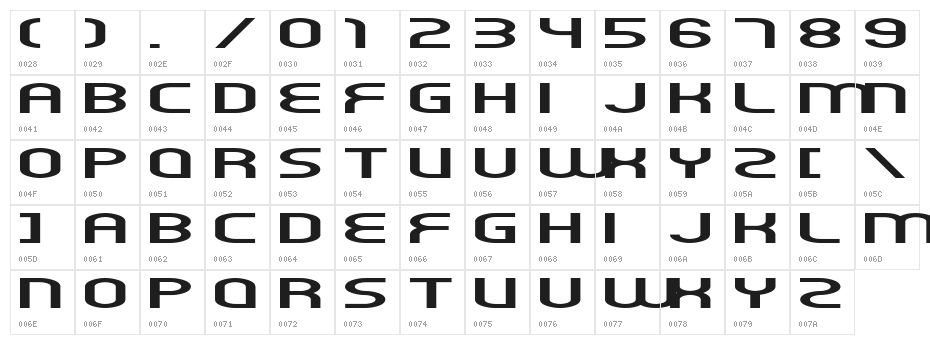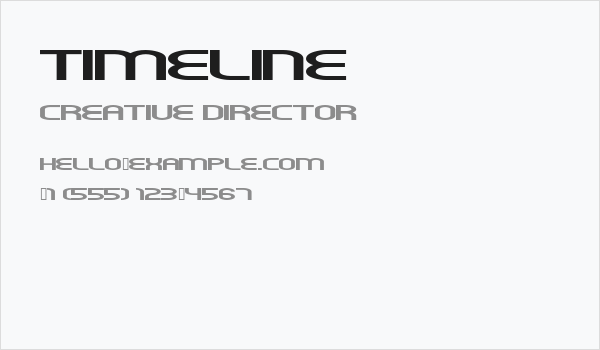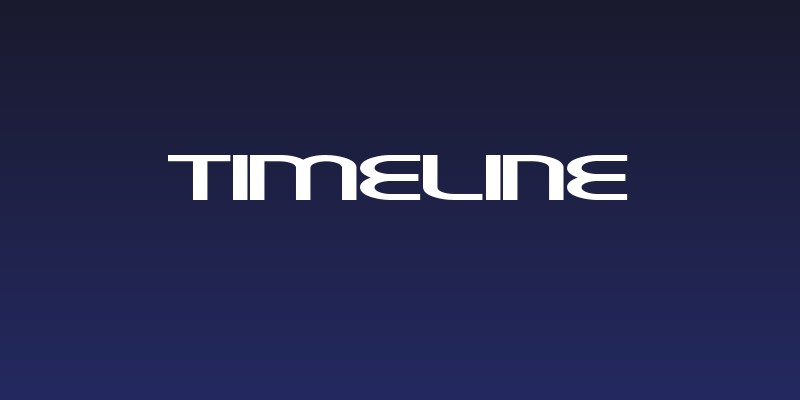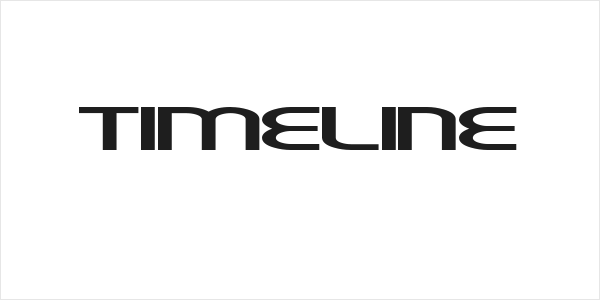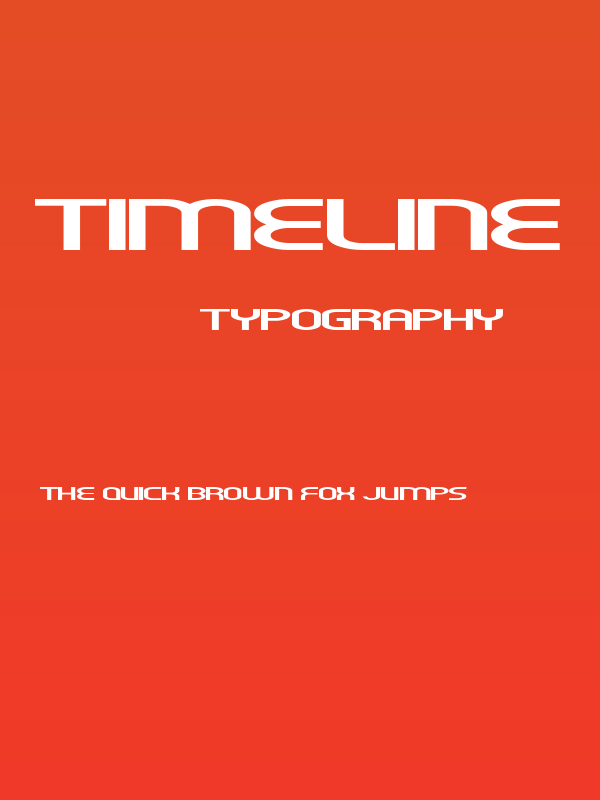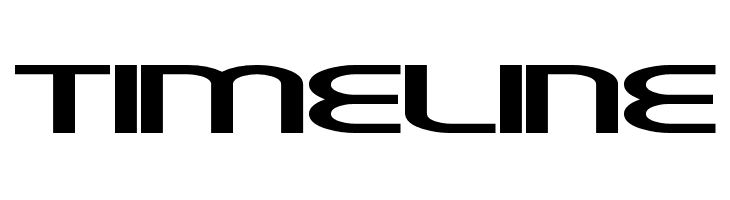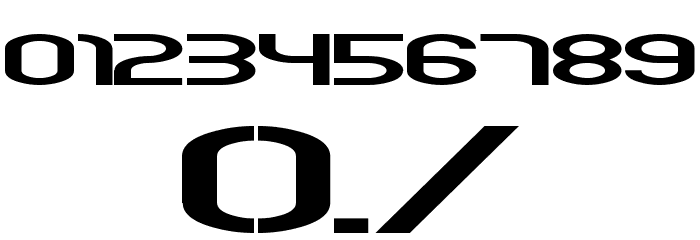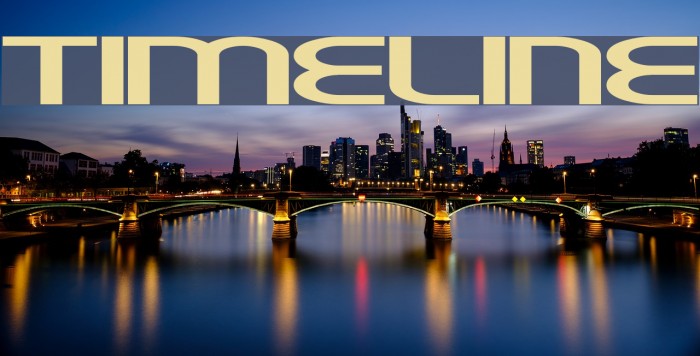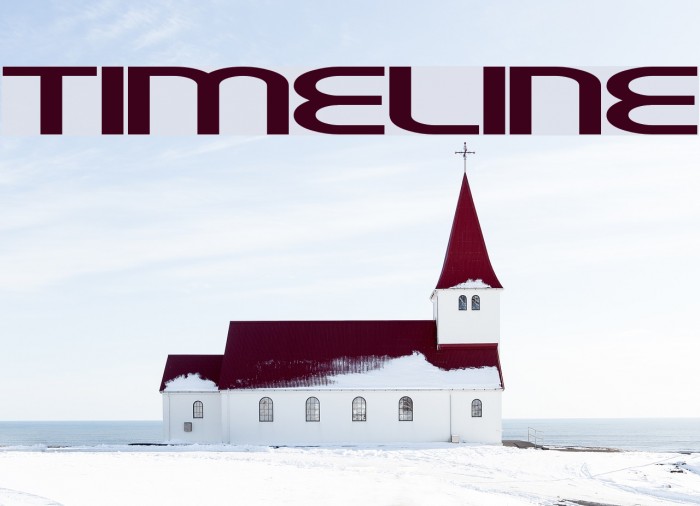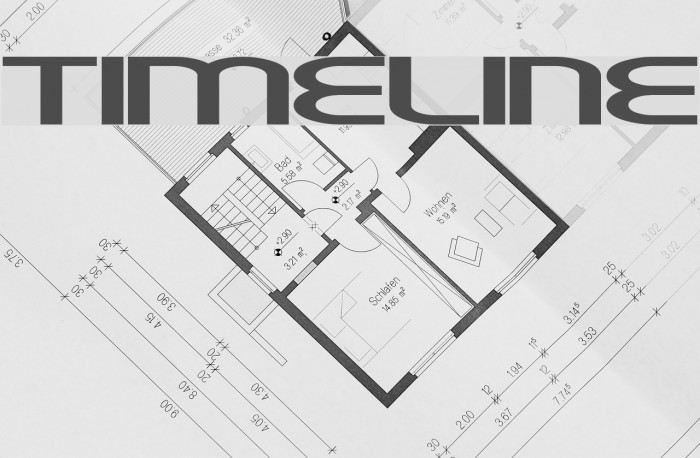
Timeline Font
Timeline Description
This font features a futuristic and geometric design, characterized by its bold and angular letterforms. The uppercase letters are distinct with sharp edges and a consistent stroke width, giving a modern and sleek appearance. The lowercase letters maintain the geometric style, ensuring uniformity across the typeface. The numerals are similarly styled, providing a cohesive look throughout. This font's unique design makes it stand out, suitable for projects that require a modern and innovative touch. The overall style is clean and minimalistic, with a focus on clarity and readability.
| Proposed Projects | Ideal for technology branding, sci-fi posters, modern logos, and digital interfaces. |